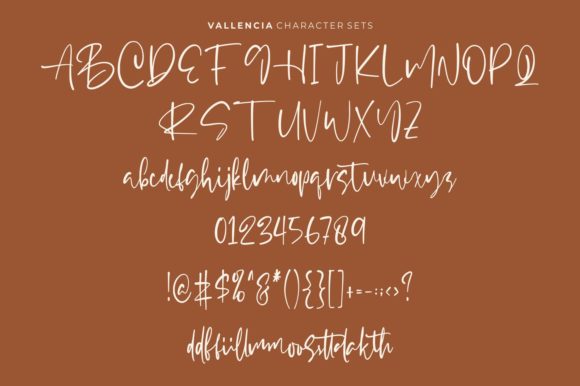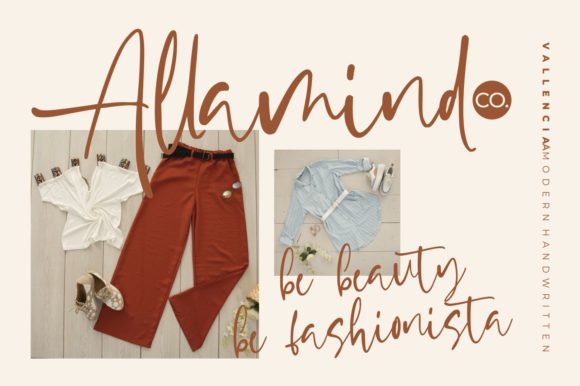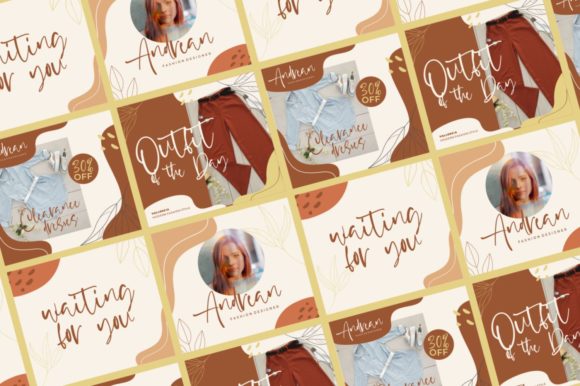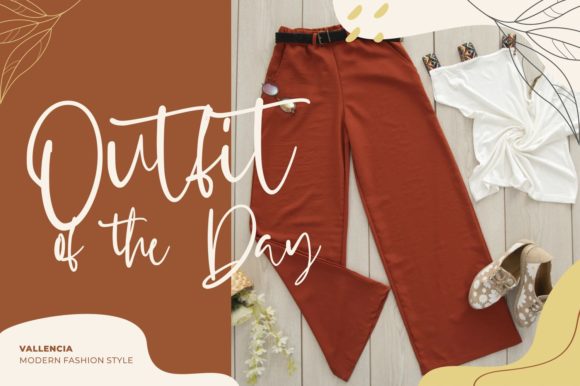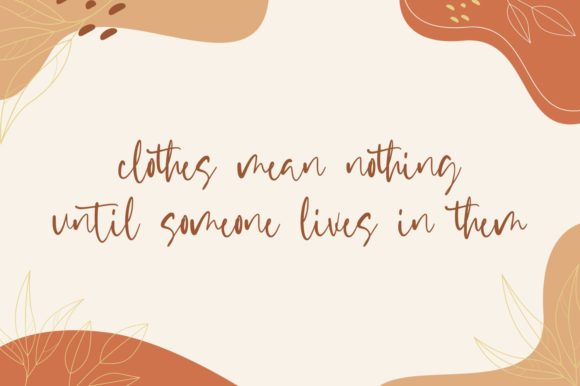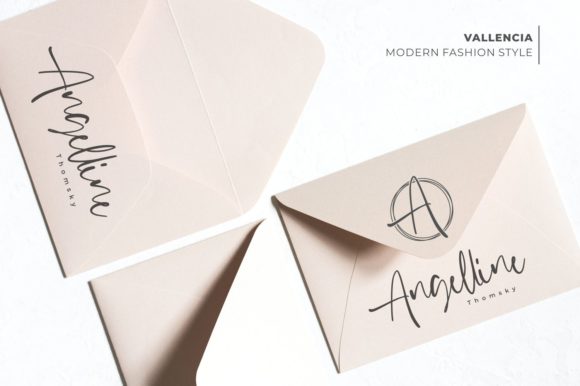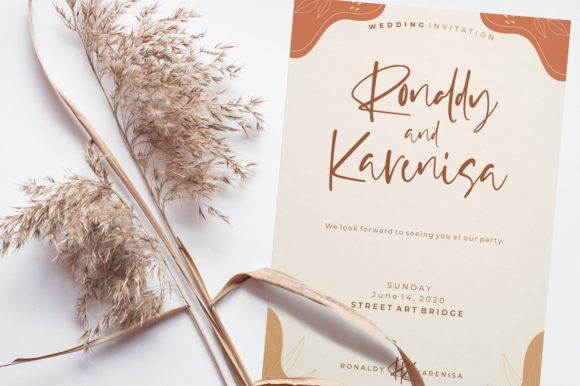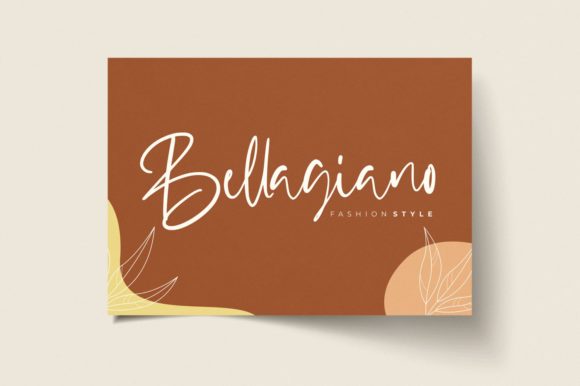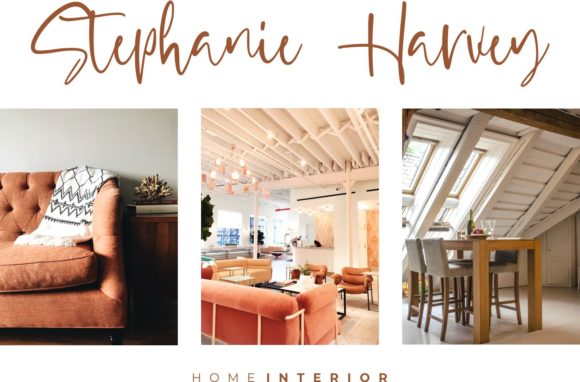
Vallencia Font
About Vallencia Font
Vallencia is a flowing and relaxed handwritten font. Its distinct style makes it adept to a wide variety of designs. Fall in love with its incredibly versatile style and use it to create spectacular designs!